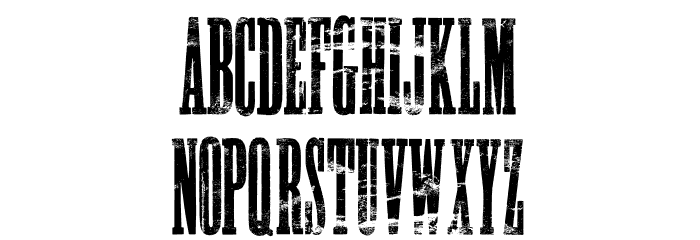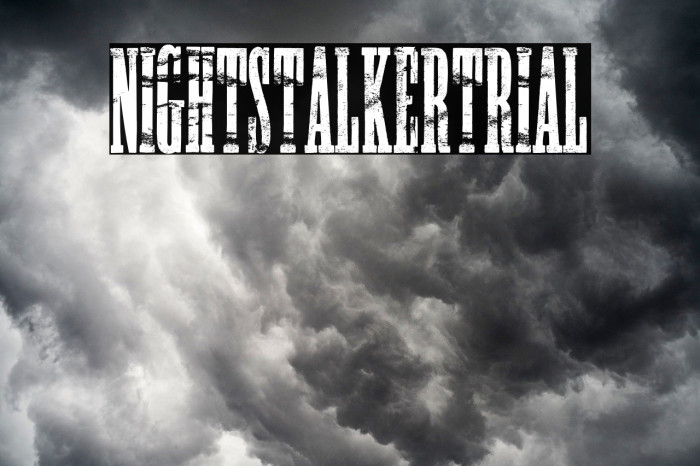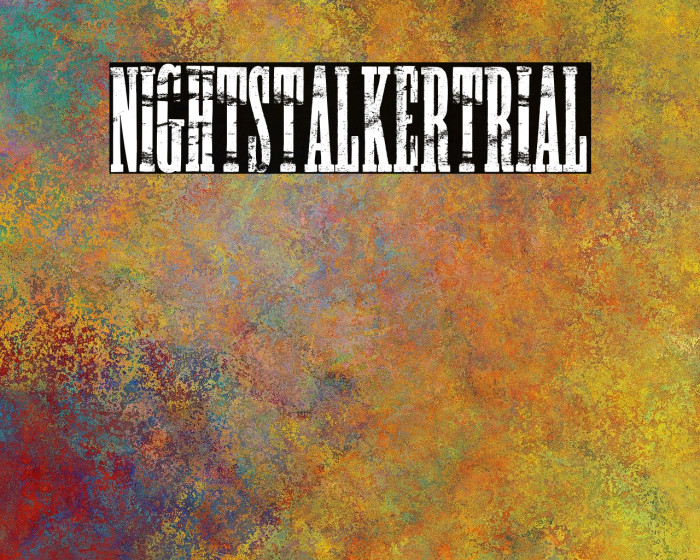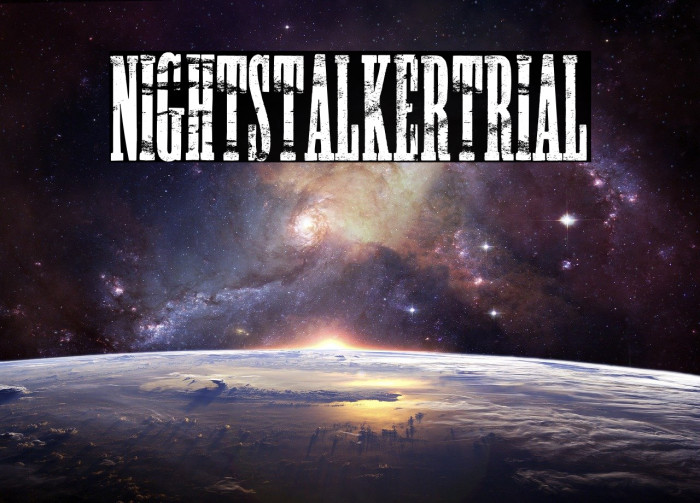
NIGHTSTALKER-TRIAL Font
This font features a bold, distressed style with a textured, grunge appearance. The uppercase letters are tall and narrow, giving a strong, impactful look. The distressed effect adds a rugged, vintage feel, making it ideal for projects that require a bold statement. The font's design is consistent across all characters, maintaining a uniform distressed pattern that enhances its visual appeal. Its unique style is perfect for creating eye-catching headlines or logos that need a touch of edginess and character.
A bold, distressed font with a grunge, vintage style.
- Proposed Projects: Ideal for posters, album covers, branding, and any project needing a bold, vintage aesthetic.
- Overall Style: Vintage